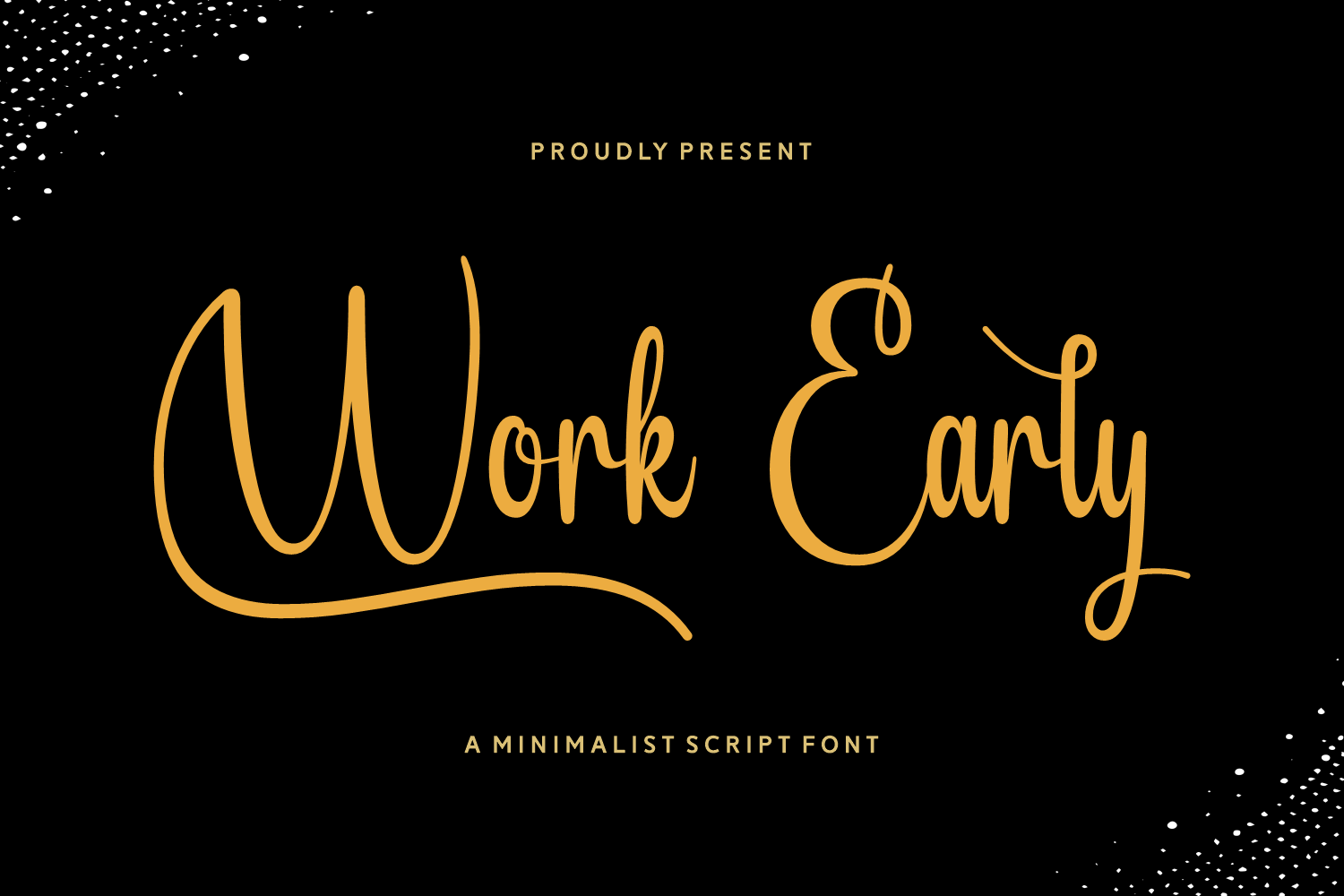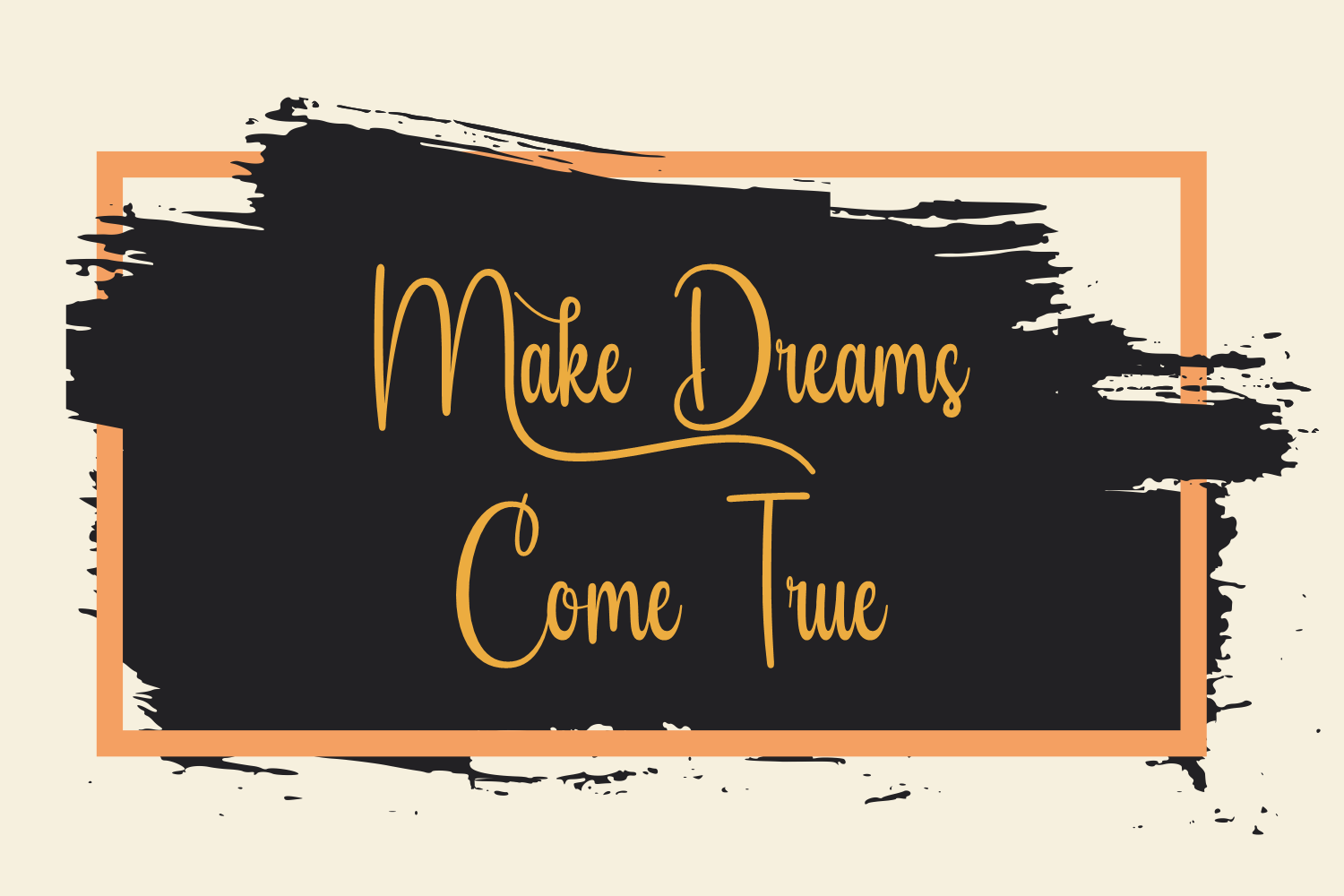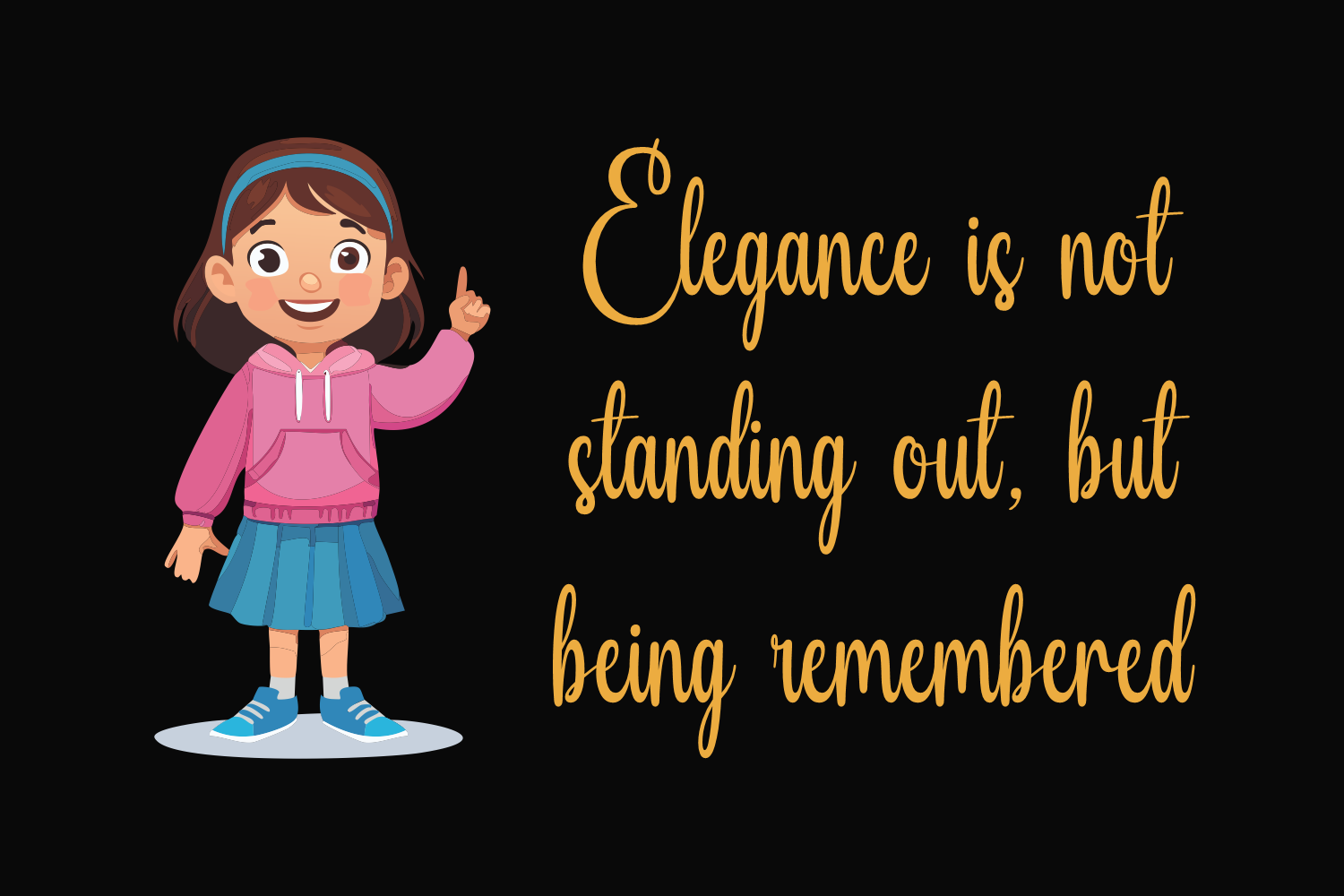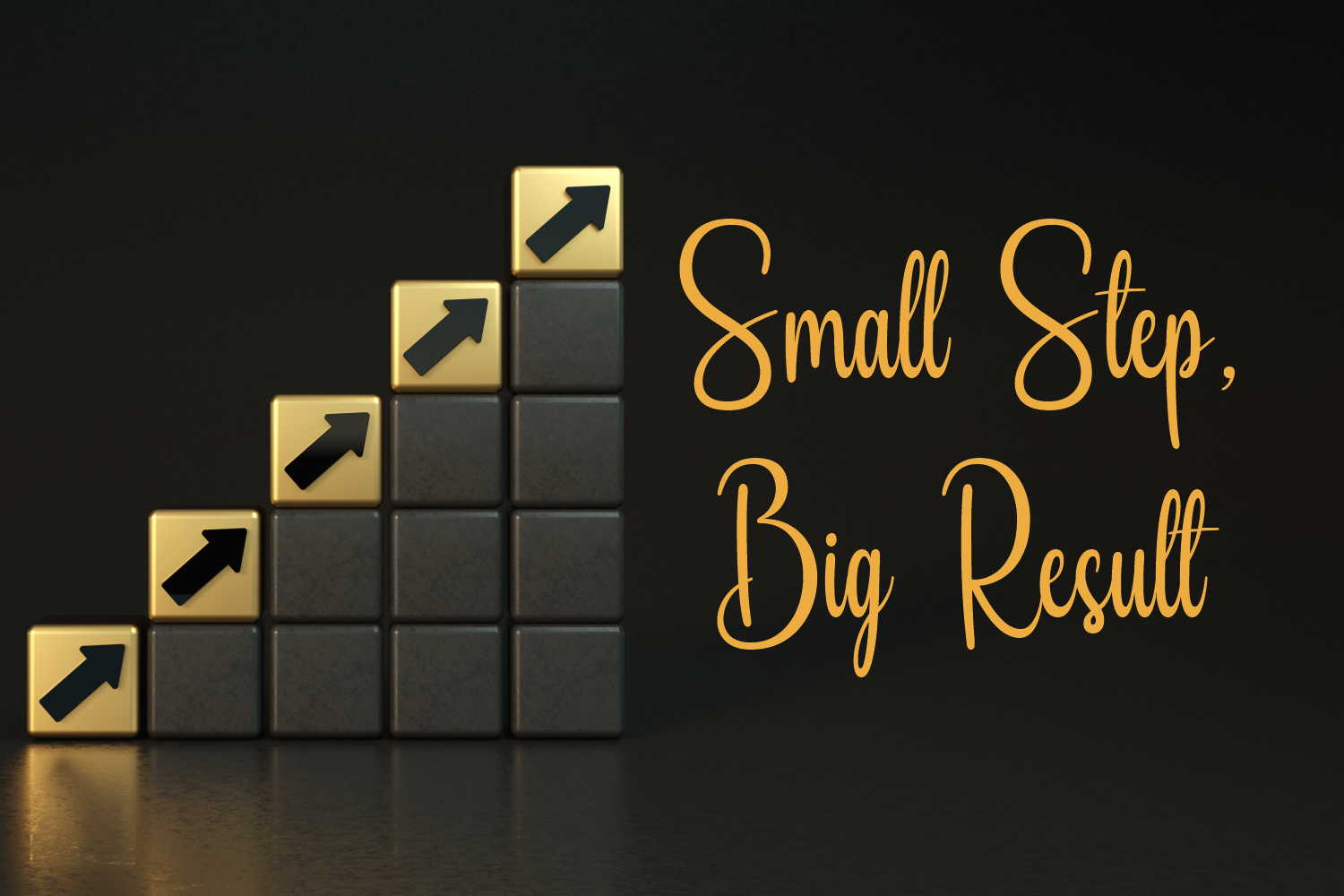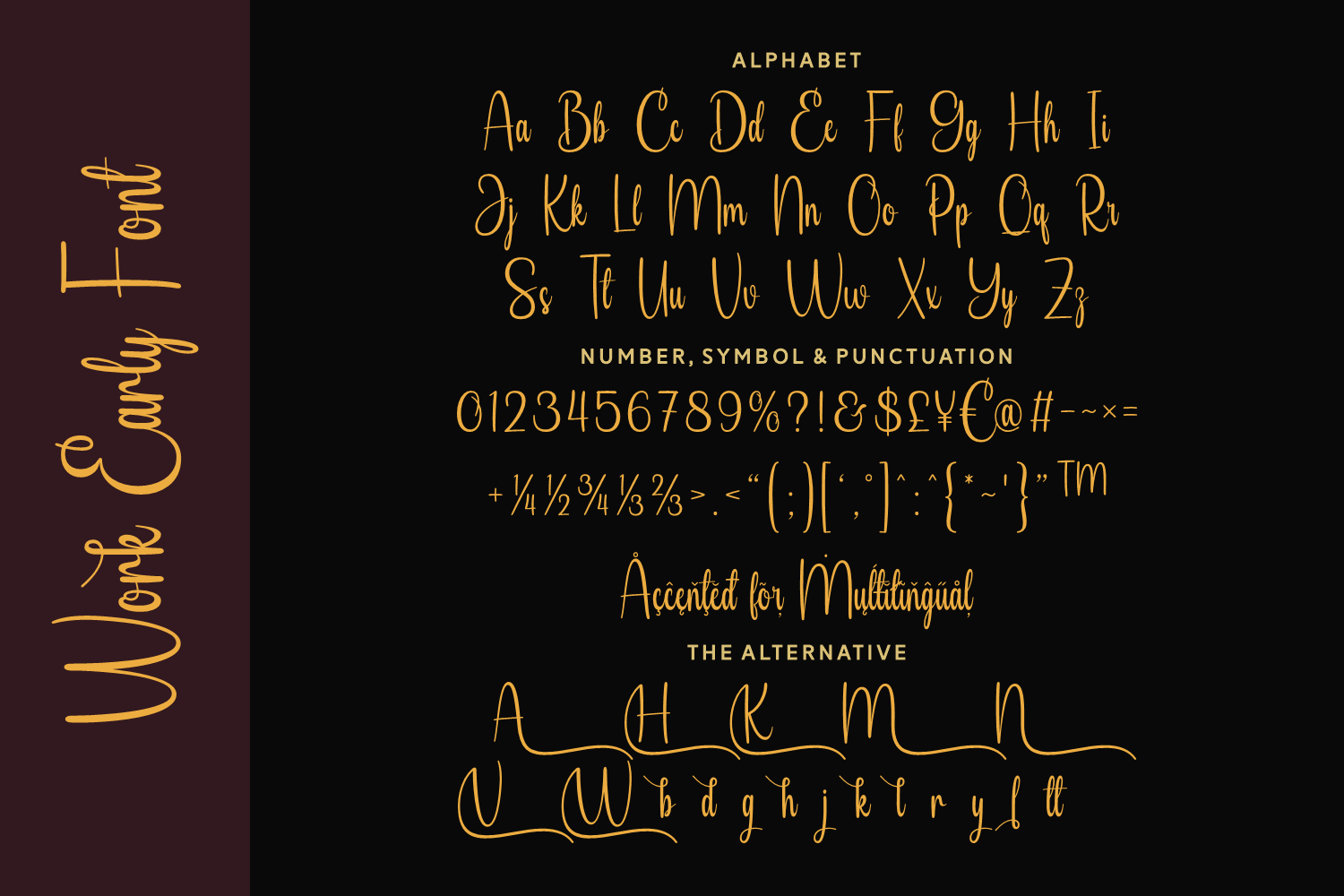
Work Early is a clean and stylish script font designed for modern professionals and creatives. With its minimalist aesthetic and tasteful flow, this font brings a sense of sophistication to branding, packaging, and lifestyle products.
The signature-style swashes give it a personal touch, ideal for bloggers, businesswomen, and elegant product labels. Make your designs stand out with effortless class and clarity.